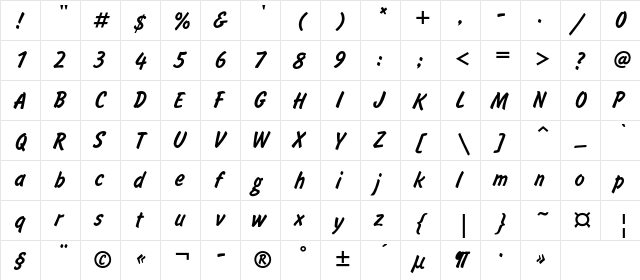
InformC Regular Font Preview
InformC Regular
InformC Regular Font Details
Design Context for InformC Typeface
InformC is a composed and adaptable typeface that performs quietly and consistently across a wide range of design contexts.